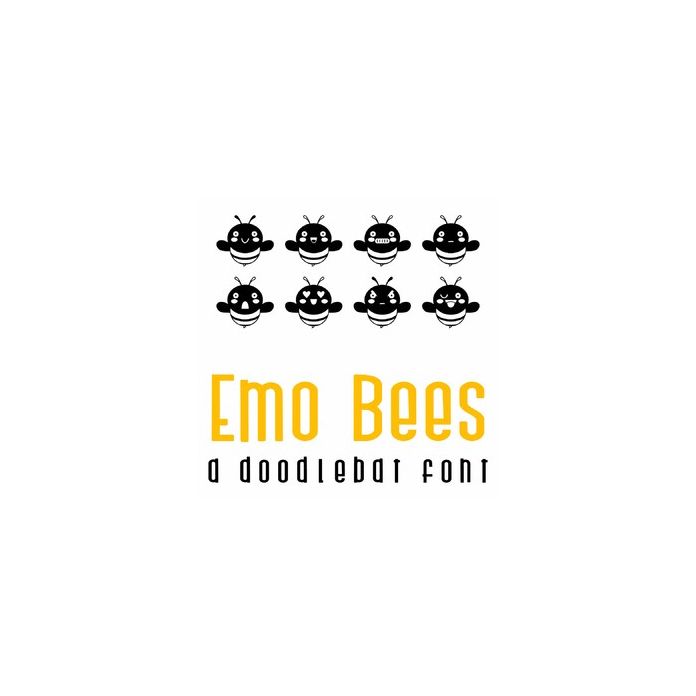
Emo-Bees Doodlebat Font
This fun doodlebat font features 26 adorable emoji bees. Perfect for cards, gifts, decor, crafts, scrap book pages, planner stickers and more!